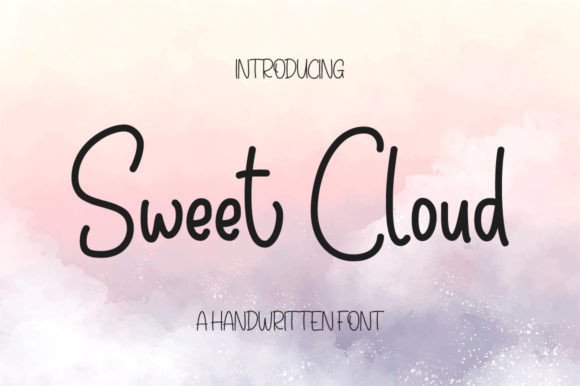
Embark on a Typographic Journey with Sweet Cloud Font: A Symphony of Elegance and Charm
In the realm of digital artistry, where words dance and visuals intertwine, there exists a font that captivates hearts and ignites imaginations. Sweet Cloud Font, a masterpiece crafted by Nirmala Creative, beckons you to experience the epitome of elegance and charm.
Step into a world where letters are transformed into delicate brushstrokes, where each character dances across the page with grace and fluidity. Sweet Cloud Font is a script font that embodies the essence of romance, playfulness, and timeless beauty.
Picture yourself crafting wedding invitations that whisper tales of love and commitment, adorned with the enchanting curves of Sweet Cloud Font. Envisage greeting cards that carry warmth and heartfelt messages, their words enveloped in the gentle embrace of this exquisite font.
From personalized logos that exude sophistication to social media posts that radiate charm, Sweet Cloud Font weaves its magic across a myriad of creative endeavors. Its versatility knows no bounds, adapting seamlessly to any project that demands a touch of elegance and whimsy.
Let your imagination soar as you explore the limitless possibilities of Sweet Cloud Font. Dive into the world of scrapbooking, where memories are preserved in an artful tapestry of words and images, each enhanced by the delicate strokes of this enchanting font.
Unleash your inner artist and design captivating posters and flyers that capture attention and ignite curiosity. With Sweet Cloud Font, your words become visual masterpieces, inviting viewers to embark on a sensory journey unlike any other.